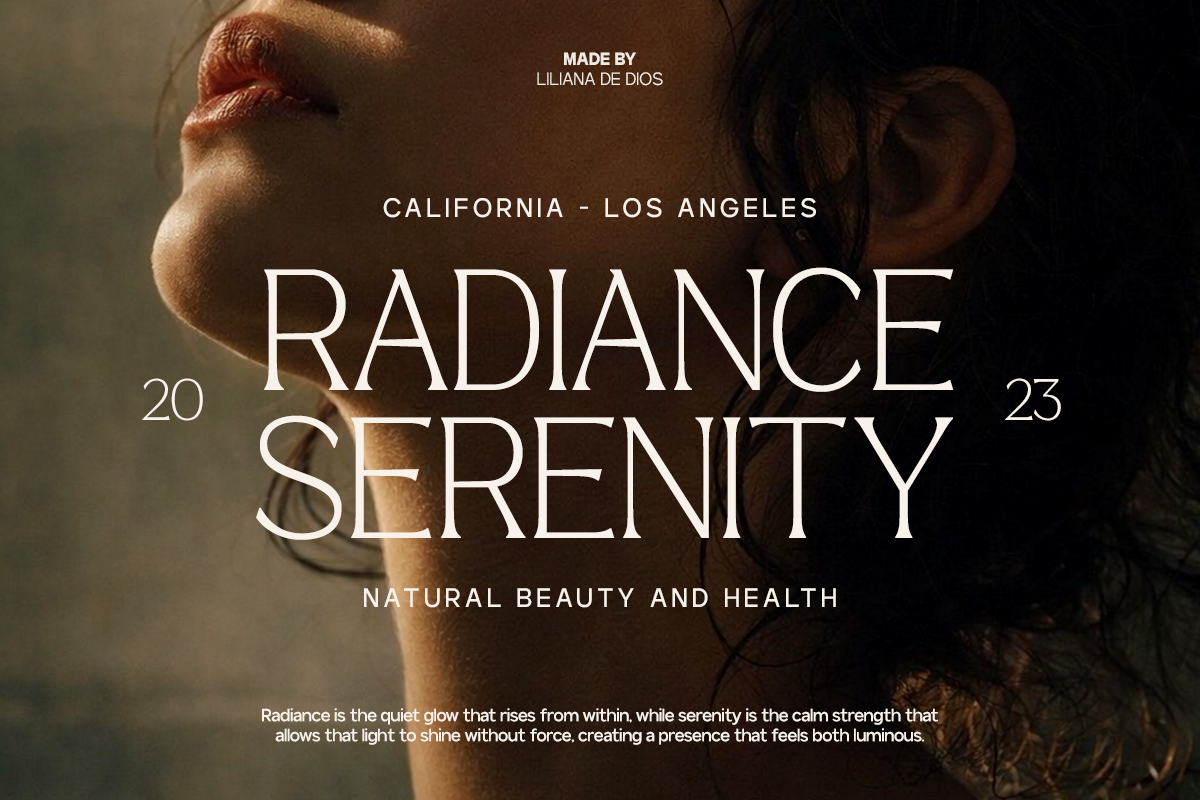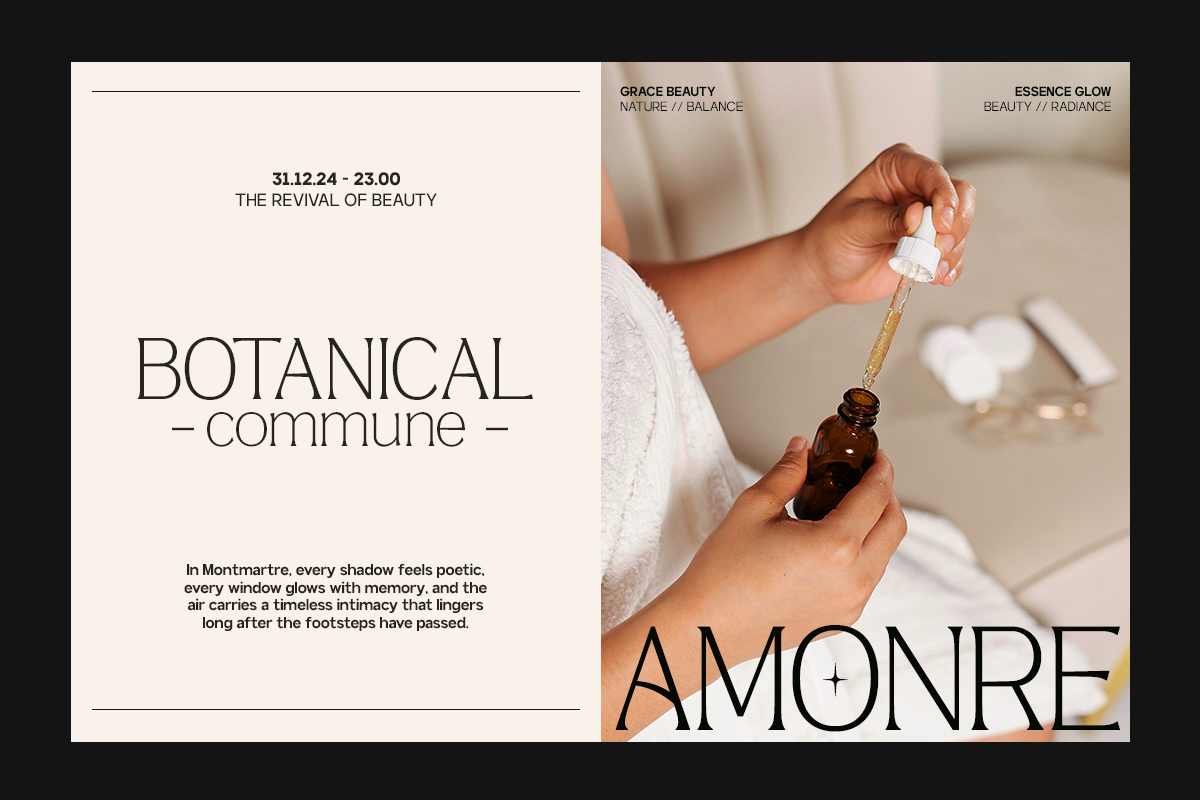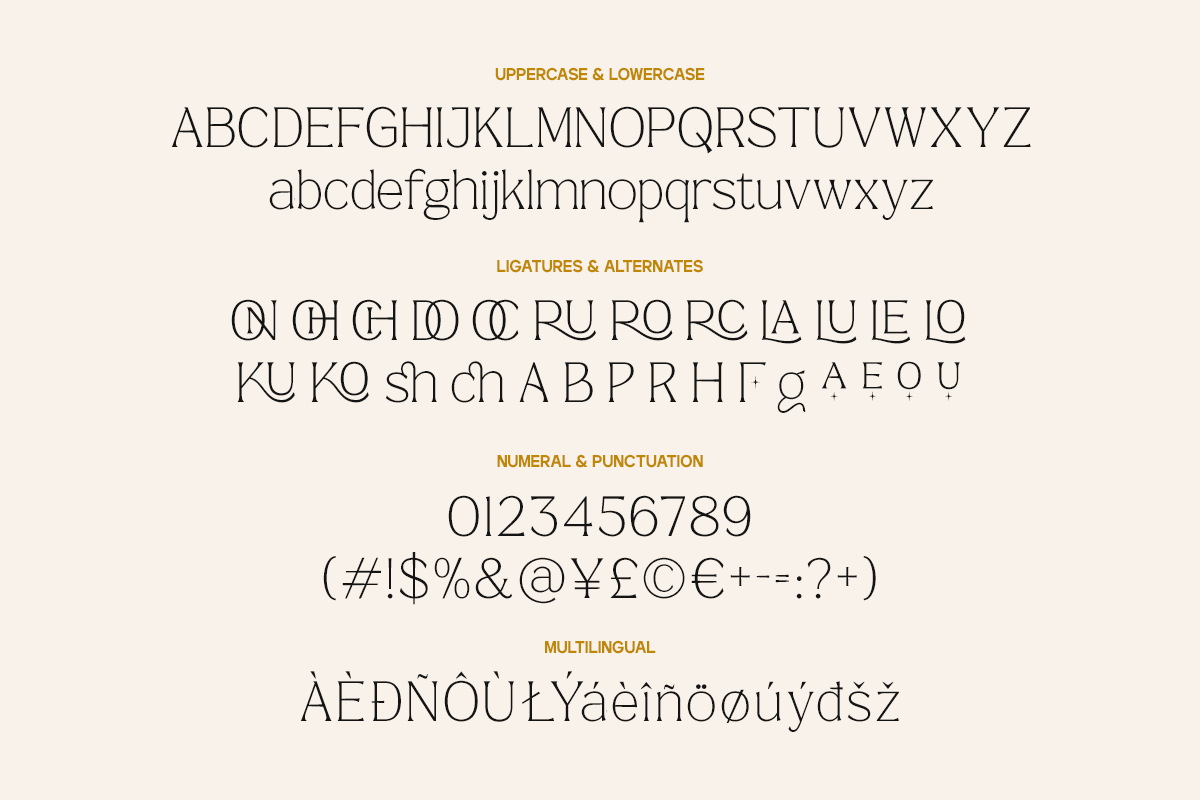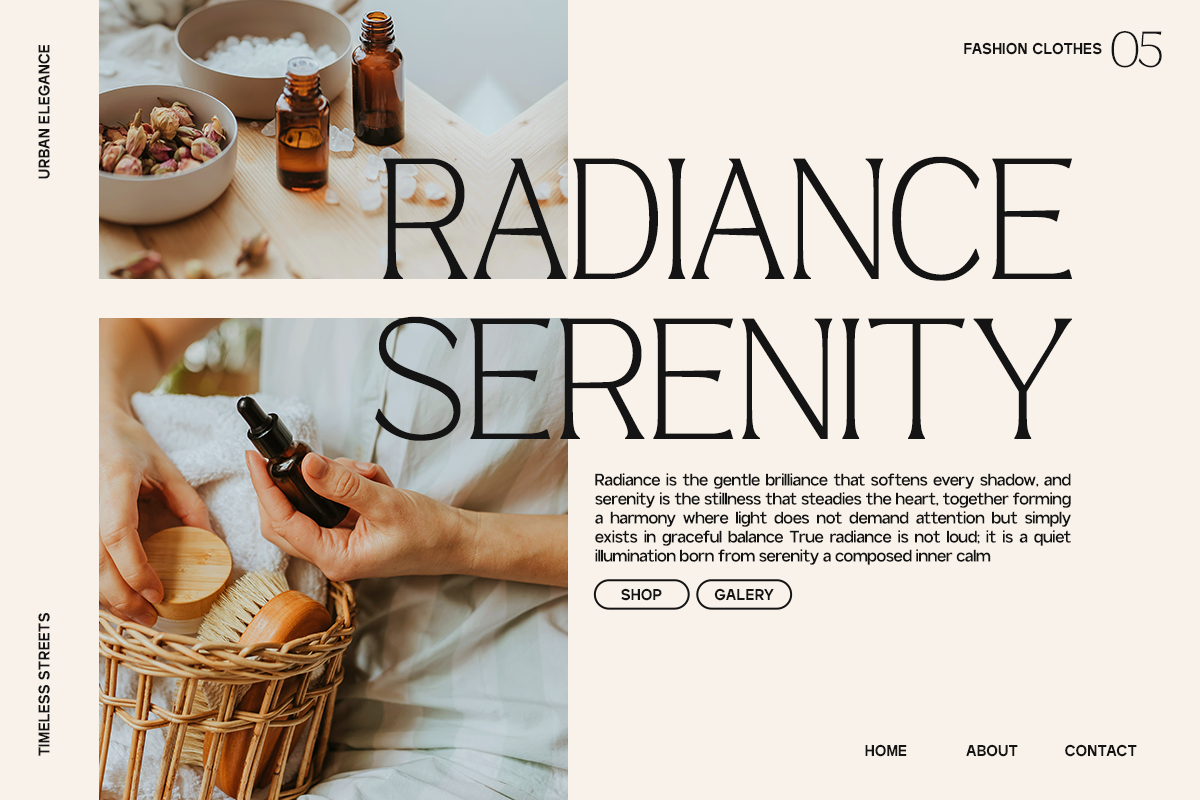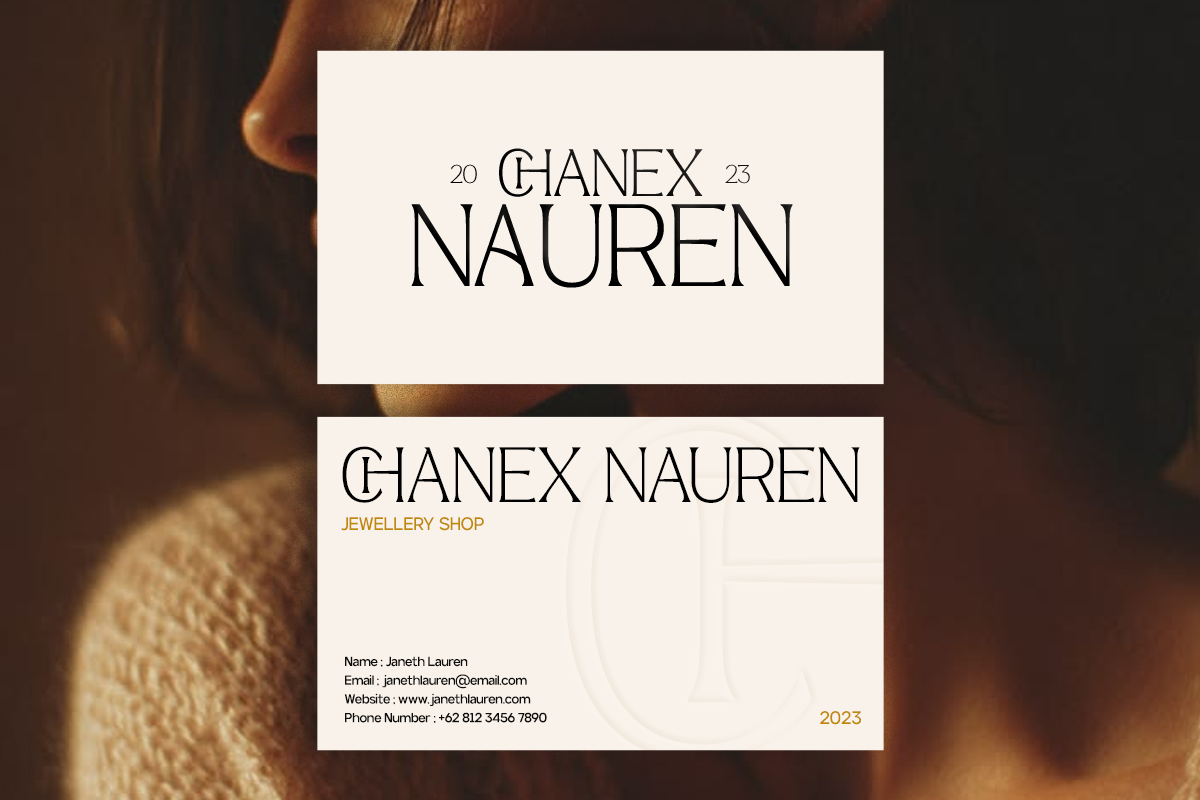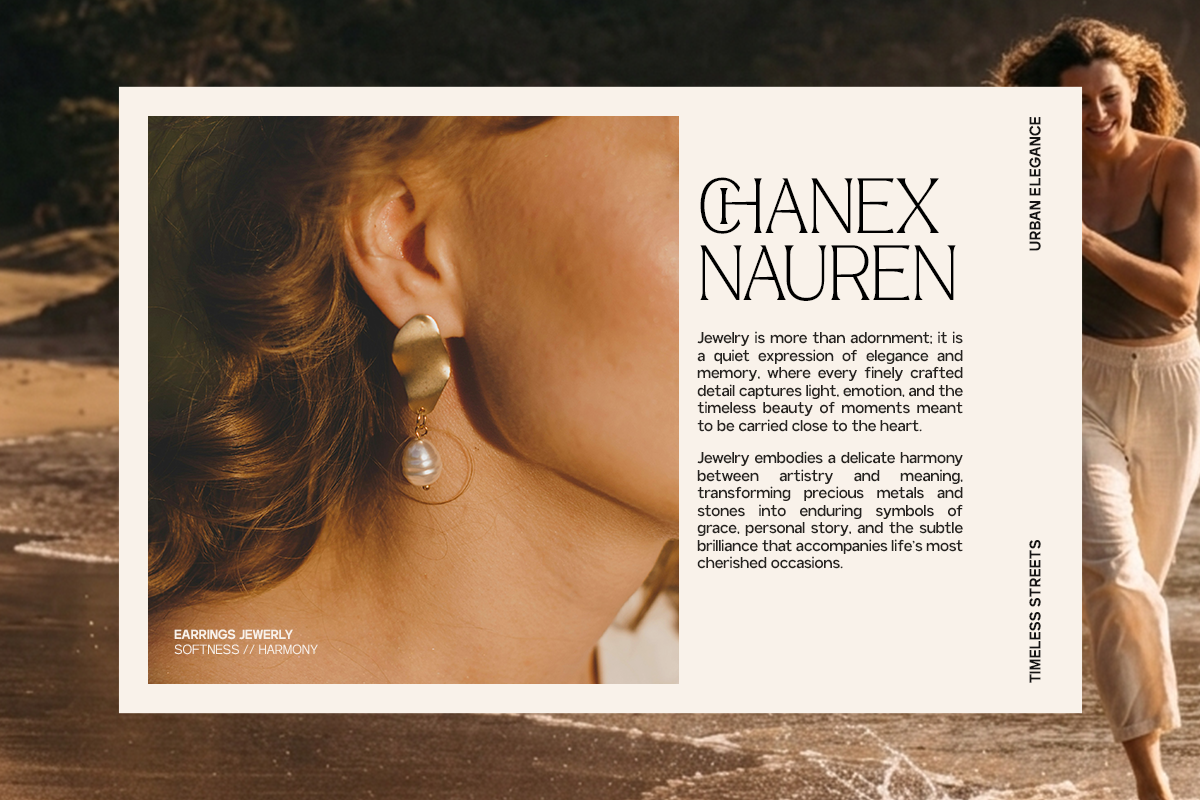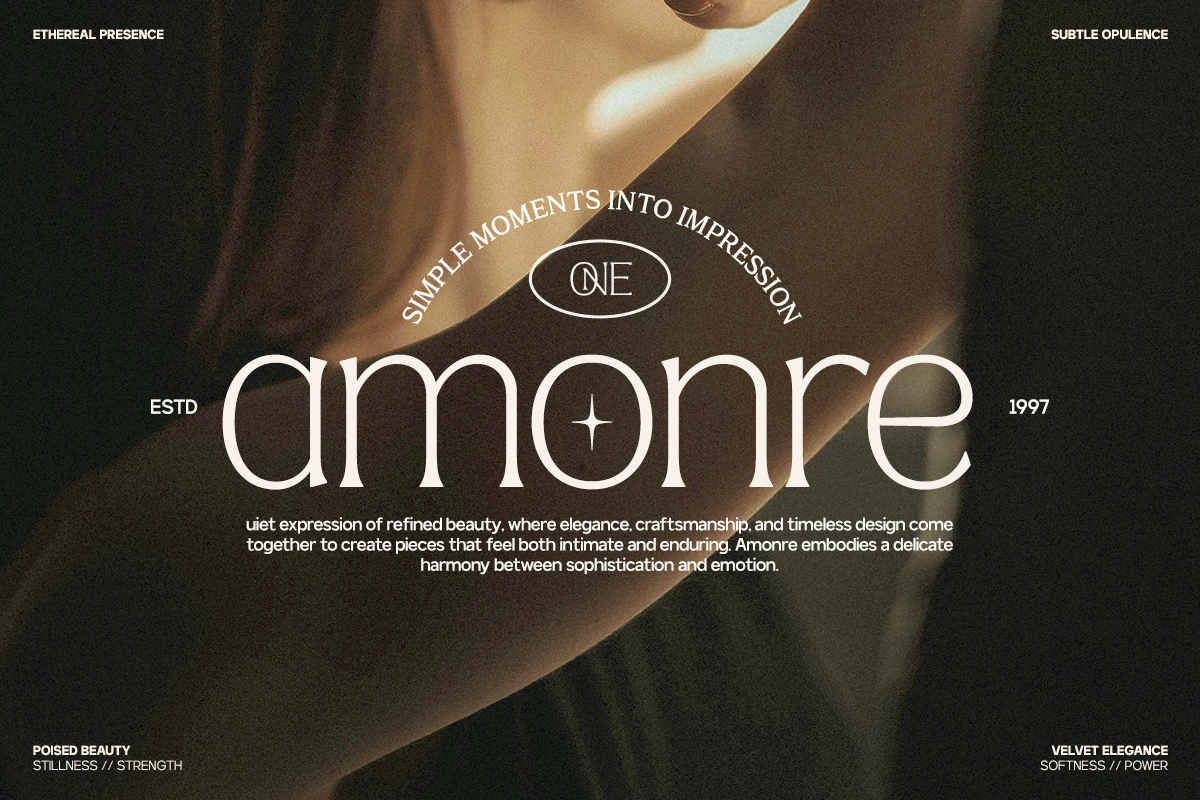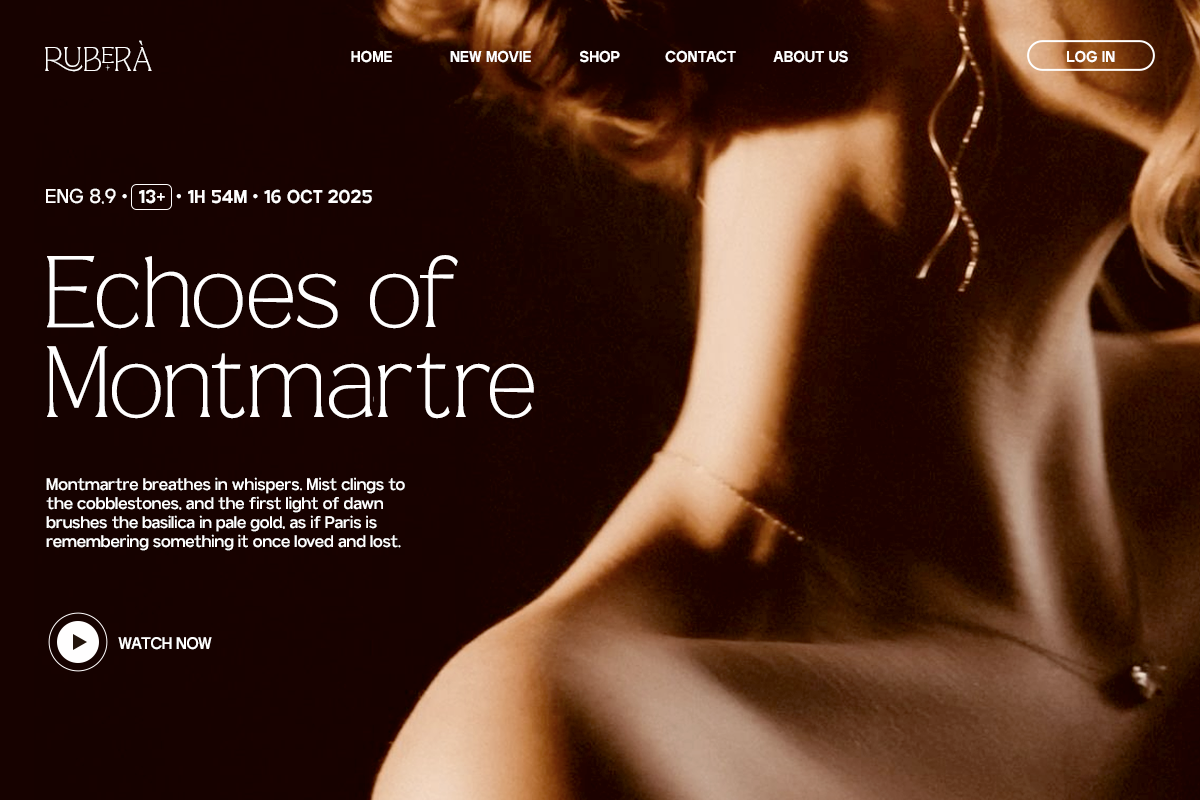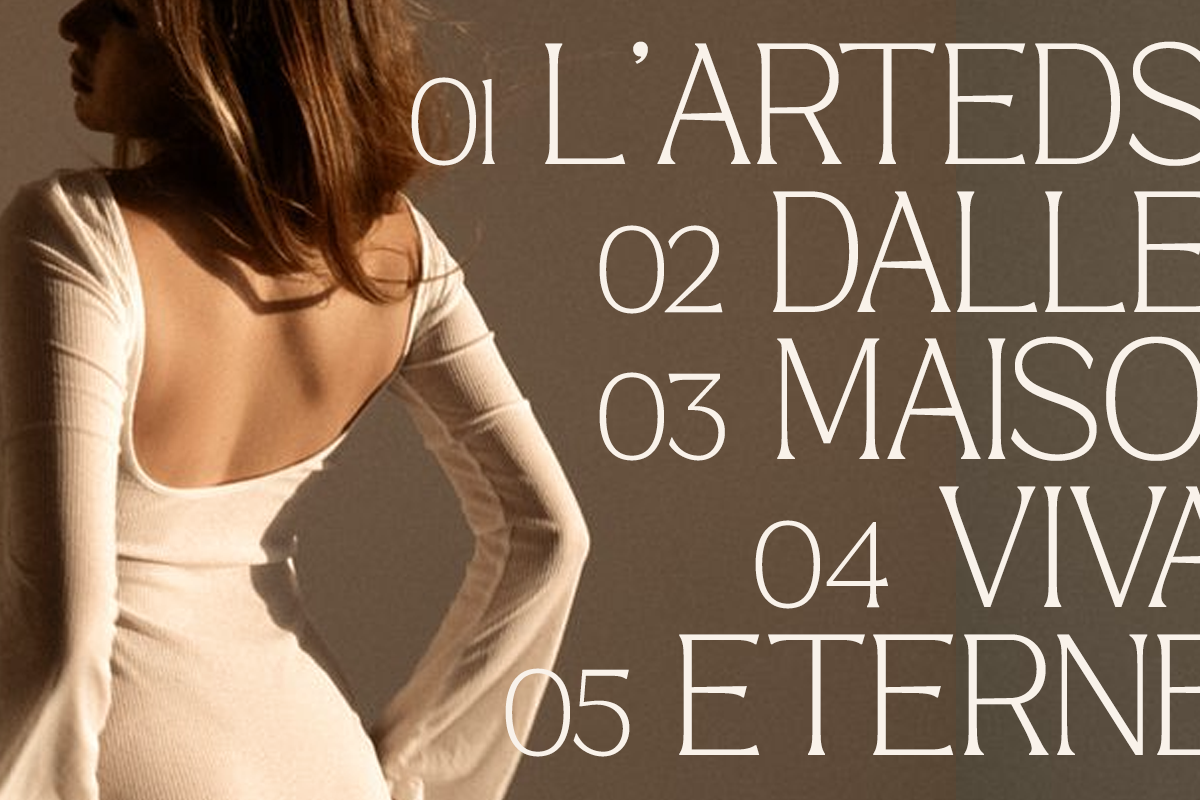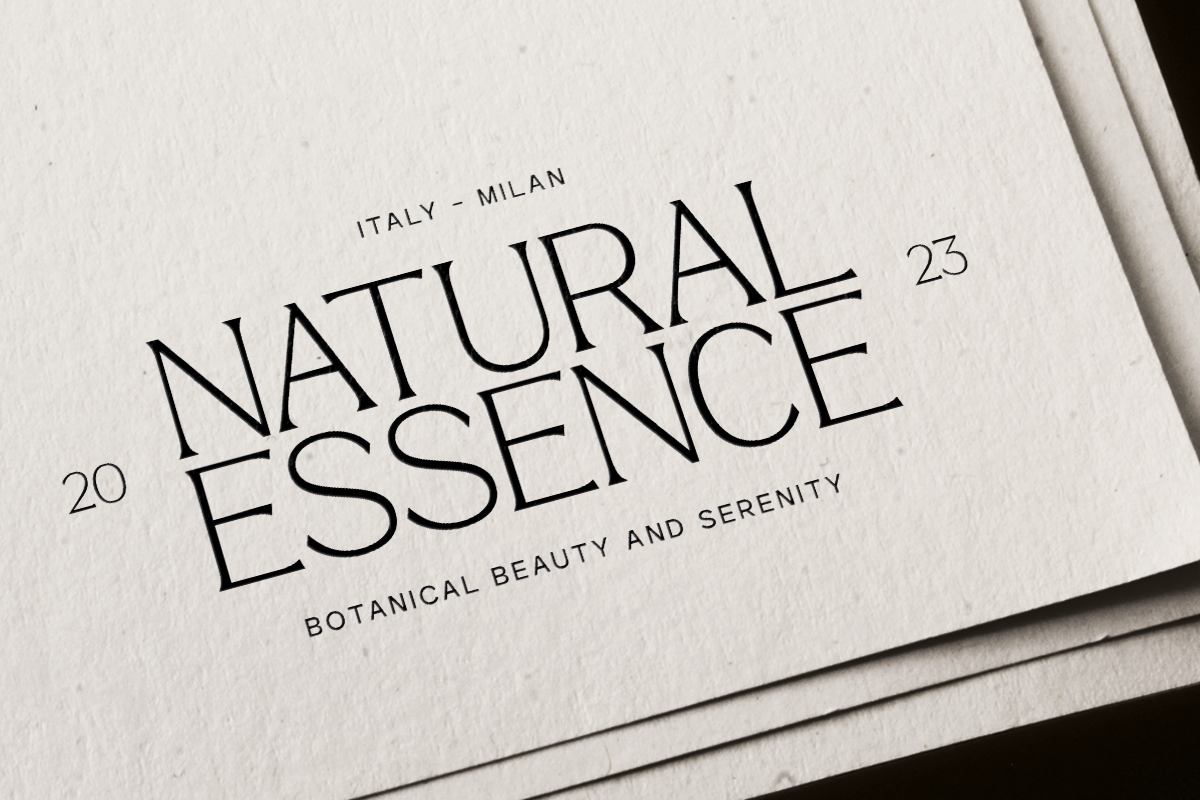
GC Marone - Elegant Essential Serif
GC Marone – Elegant Essential Serif is a refined serif typeface designed to express elegance, beauty, and clarity. Built with balanced proportions, graceful curves, and sophisticated detailing, Marone delivers a timeless typographic voice that feels both modern and classic.
With its smooth ligatures and flowing letterforms—as seen in its signature-style connections—**GC Marone** creates a sense of harmony and refined expression. The combination of structured serif forms and subtle decorative touches gives it a distinctive personality, making it perfect for designs that require elegance with character.
Crafted for both digital and print use, GC Marone performs beautifully across branding, editorial layouts, luxury packaging, and high-end visual compositions. Its refined structure ensures readability, while its expressive details elevate the overall aesthetic.
Whether used for elegant headlines, signature-style branding, or modern editorial design, GC Marone brings sophistication, clarity, and expressive serif beauty to your typography.
- Elegant Serif Construction
- Refined Ligatures & Signature Flow
- Clean & Balanced Letterforms
- Multilingual Support (170+ Languages)
GC Marone — essential serif with modern elegance and expressive beauty.